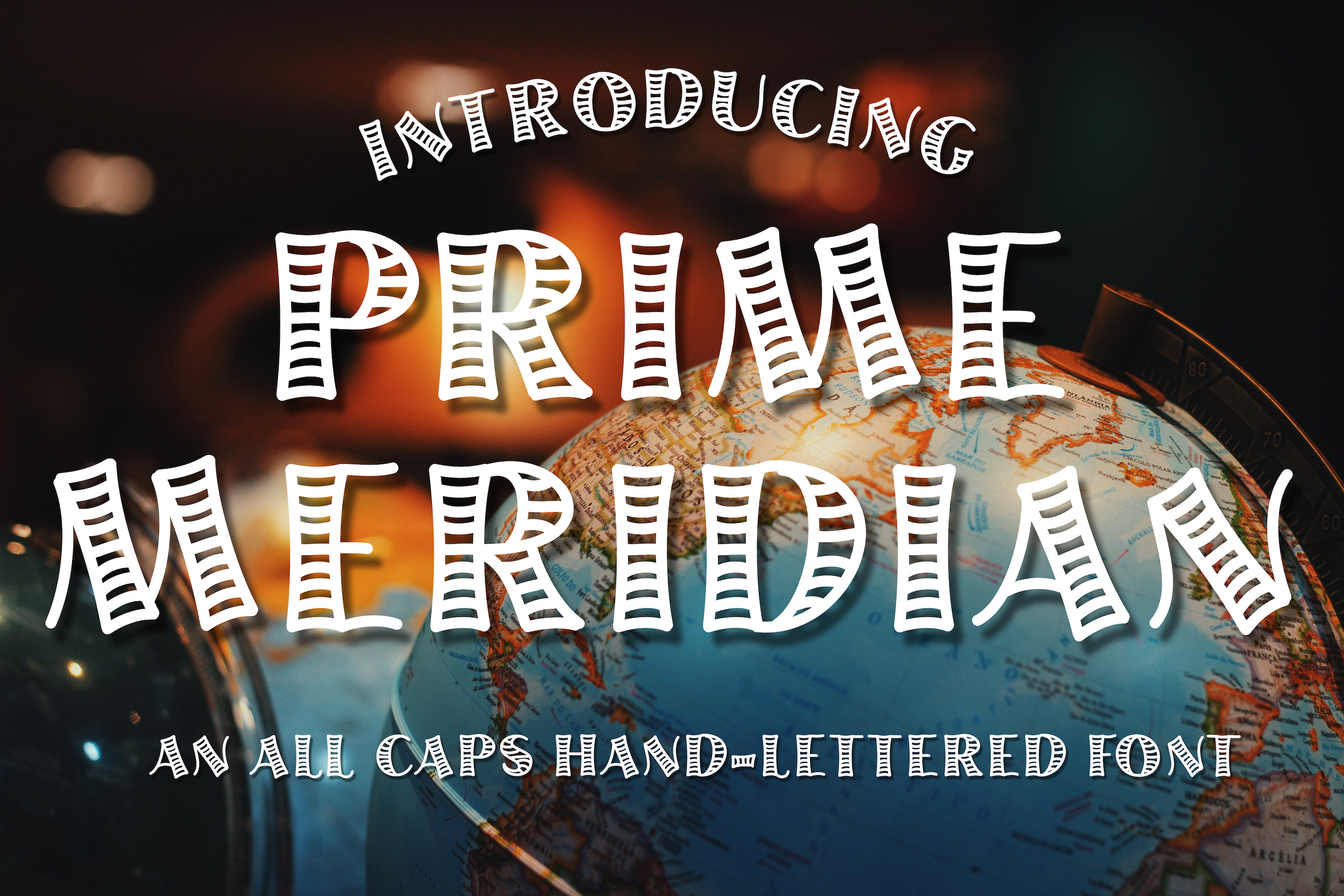
Prime Meridian Hand-Lettered Font
Prime Meridian is a fun, decorative hand-lettered font. This font contains capital letters, numbers, and basic punctuation/symbols. Add a little style to your Instagram feed, create cards for friends and family, or use it for any other design projects.